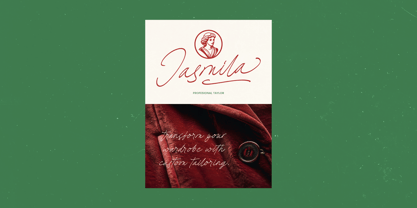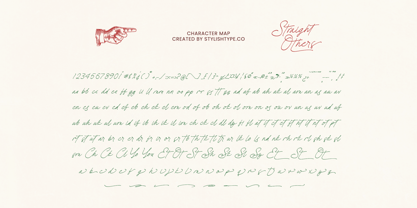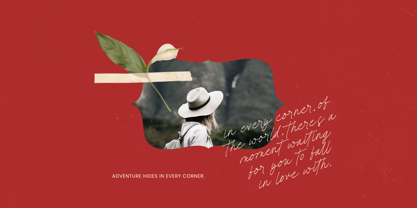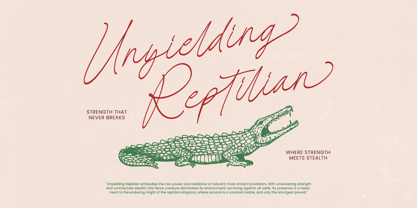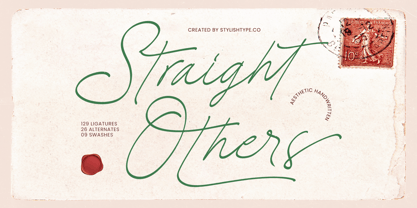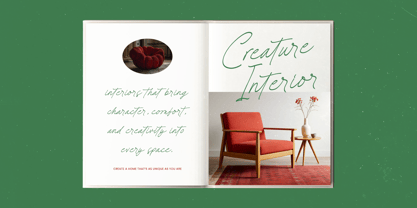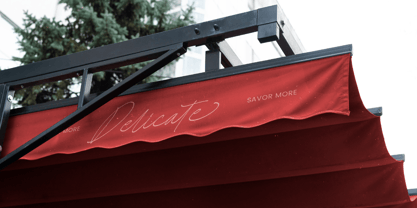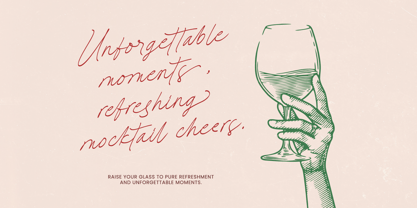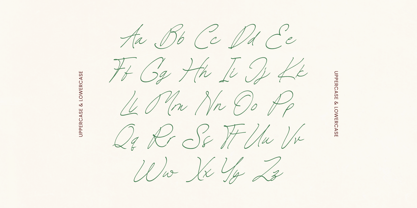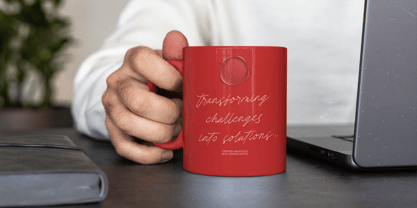
Straight Others
by Stylishtype Studio
The Straight Others Font Family was designed by Heru Utama Putra and published by Stylishtype Studio. Straight Others contains 2 styles and family package options. More about this family
Straight Others - Aesthetic Handwritten Straight Others is a graceful and expressive handwritten script font that captures the charm of classic penmanship with a modern aesthetic touch. Designed to evoke elegance, warmth, and authenticity, this font features flowing strokes, refined curves, and beautifully balanced letterforms that bring a natural handwritten feel to any design. With an impressive set of 129 ligatures, 26 stylistic alternates, and 9 decorative swashes, Straight Others offers exceptional flexibility for creating unique and sophisticated typographic compositions. Each character is thoughtfully crafted to ensure smooth connections and stylish variations, making your text look effortlessly elegant and personalized. Perfect for projects that require a refined and artistic look, Straight Others shines in branding, wedding stationery, invitations, logos, packaging, and editorial designs. Its aesthetic handwritten style adds a timeless and emotional touch that enhances both print and digital creations.